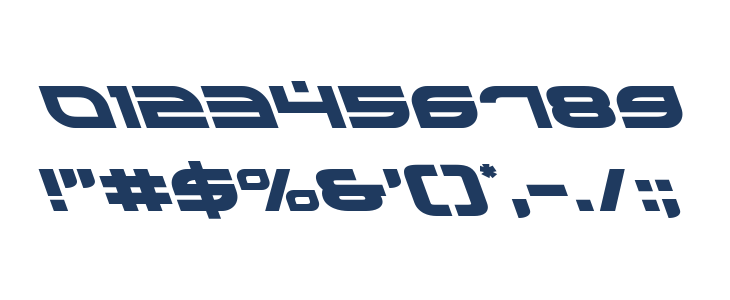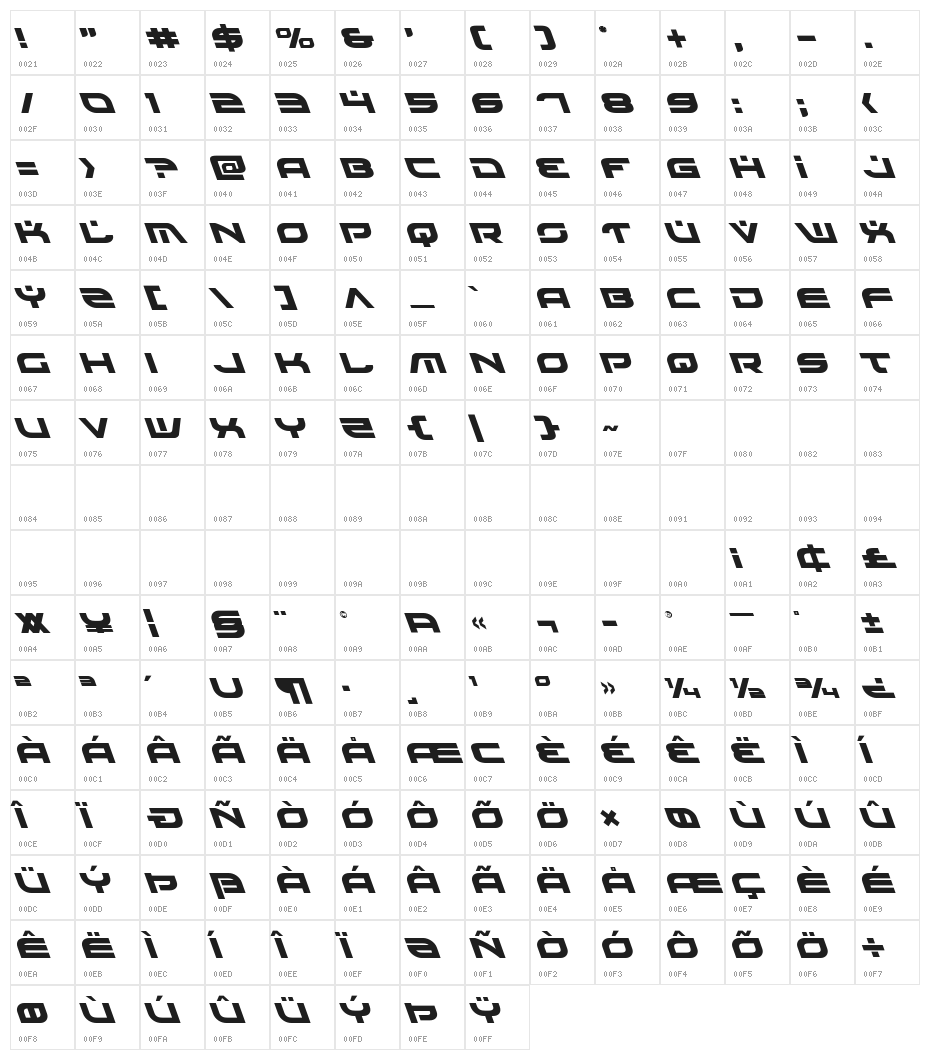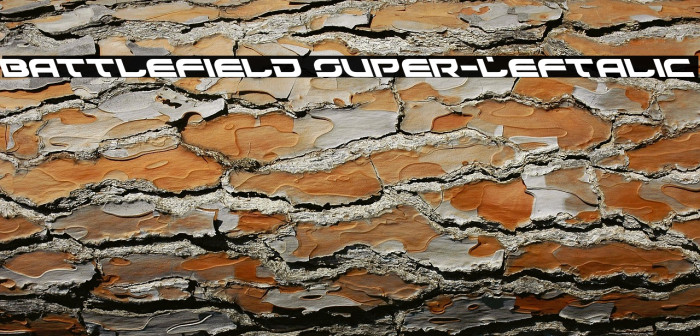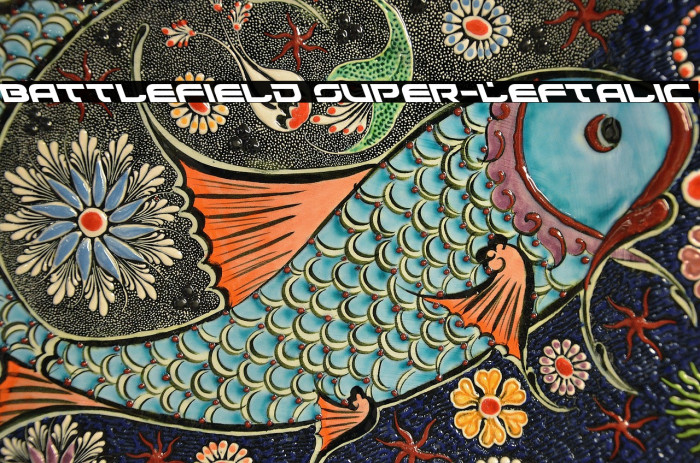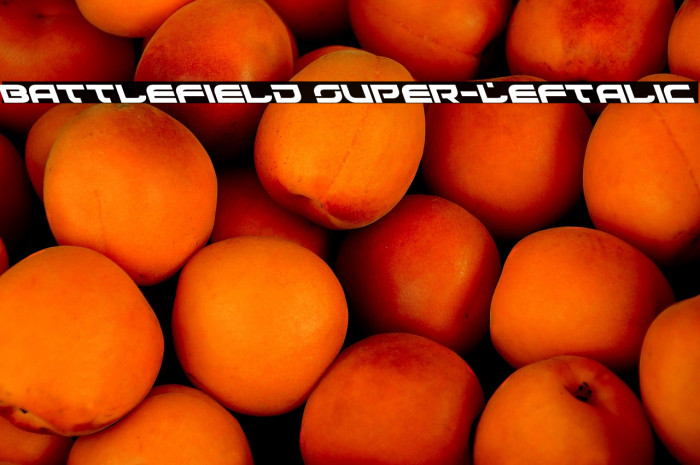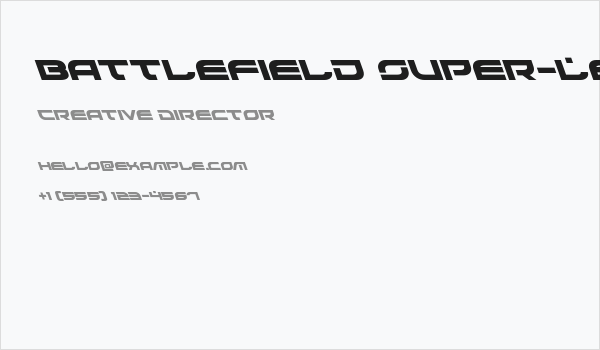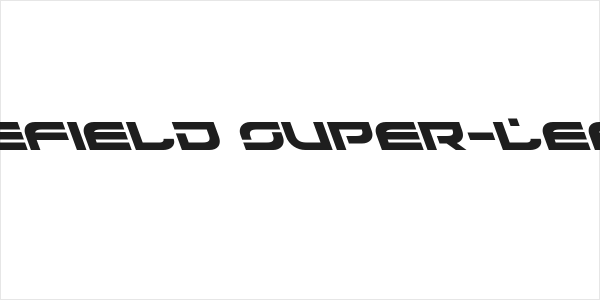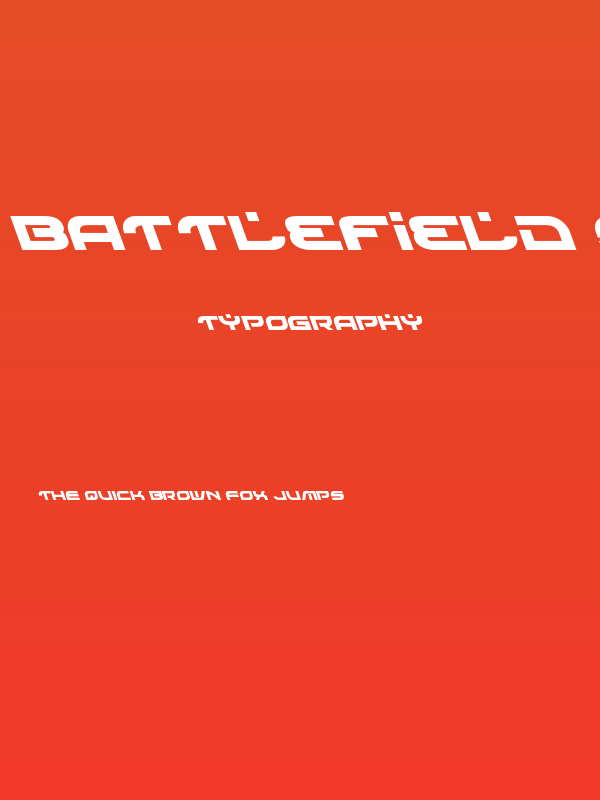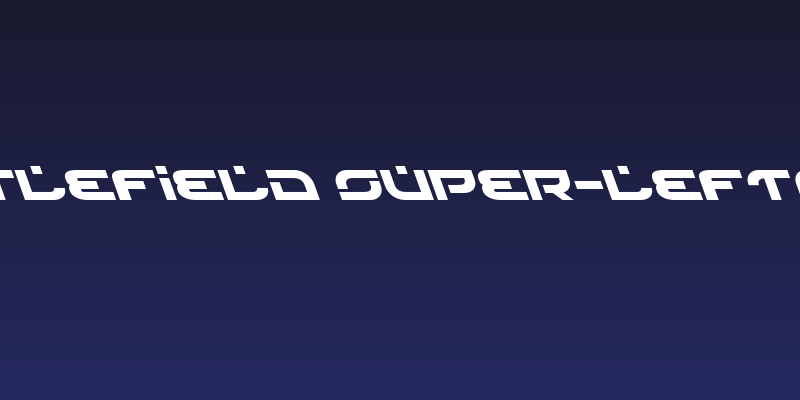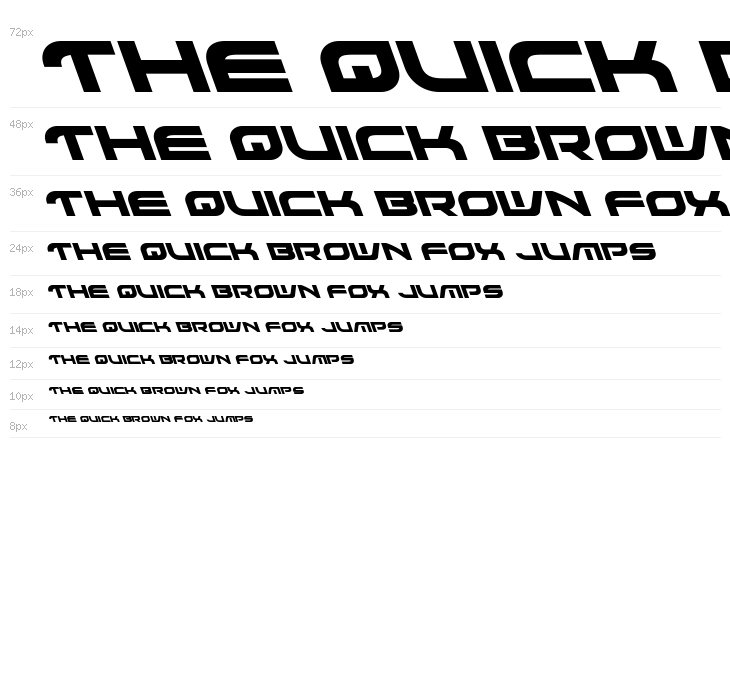
Battlefield Super-Leftalic Font
Battlefield Super-Leftalic Description
This font features a bold, futuristic design with angular, geometric shapes and a distinct slant to the left, giving it a dynamic and energetic appearance. The characters are wide and have a strong presence, making them ideal for attention-grabbing headlines or titles. The font includes a full set of uppercase and lowercase letters, numbers, and a variety of special characters. Its unique style is reminiscent of sci-fi and action themes, with a modern twist that makes it suitable for contemporary designs.